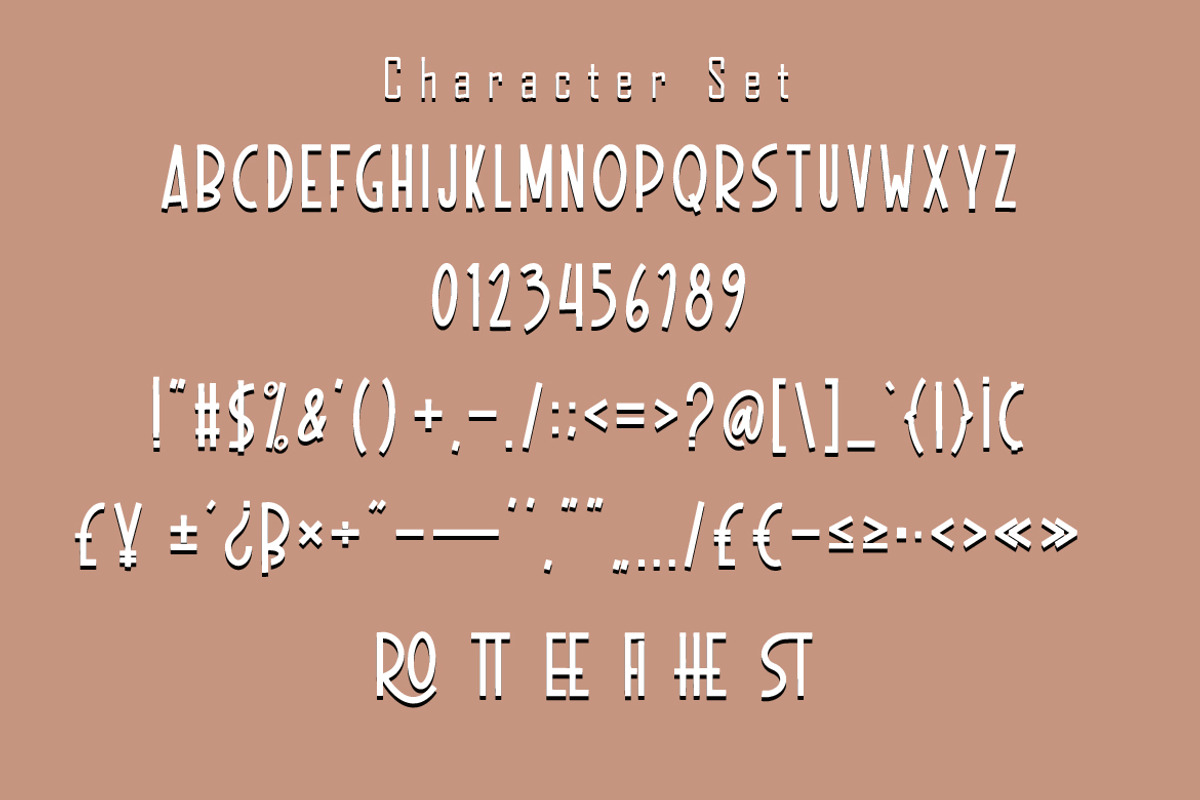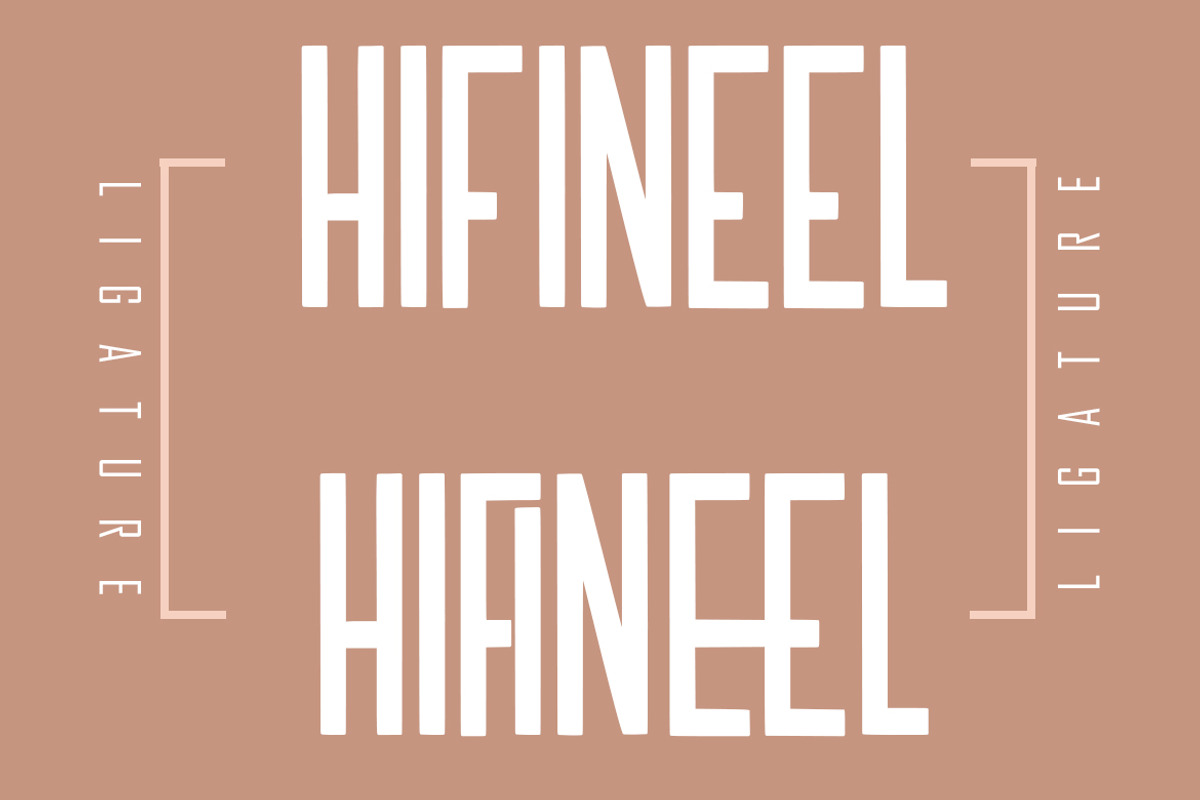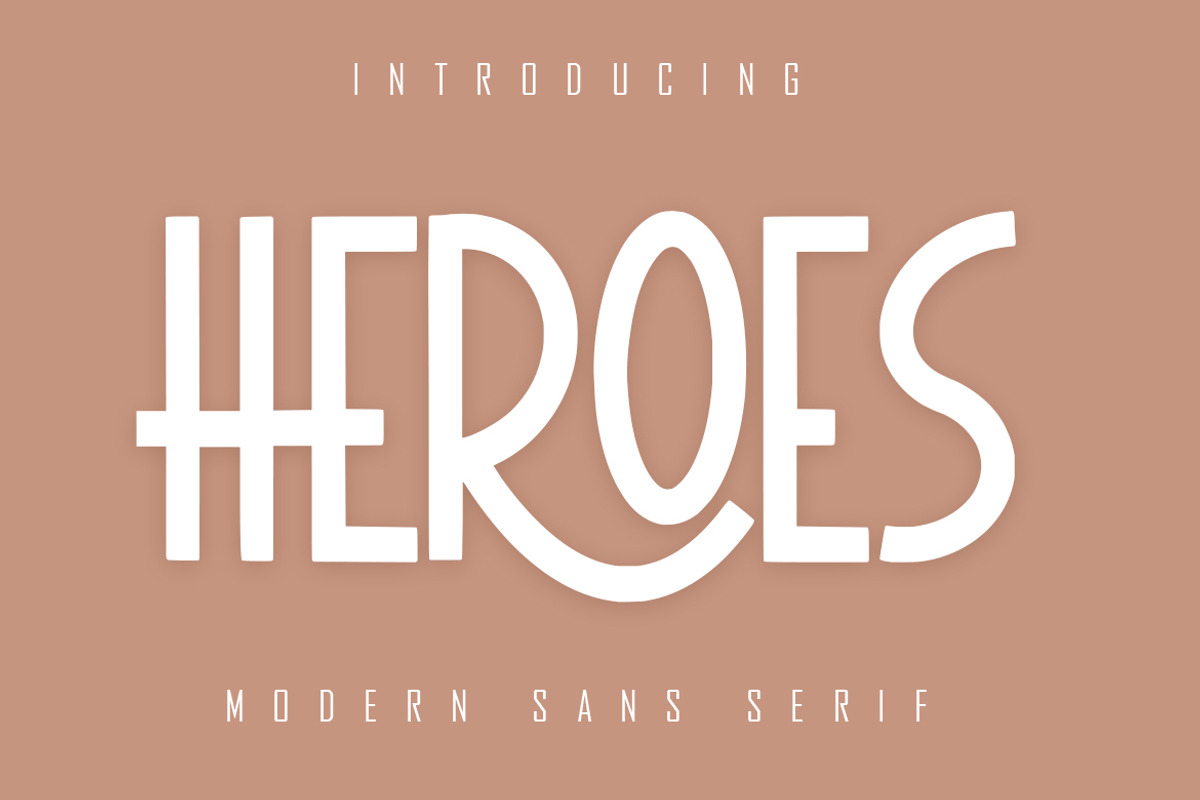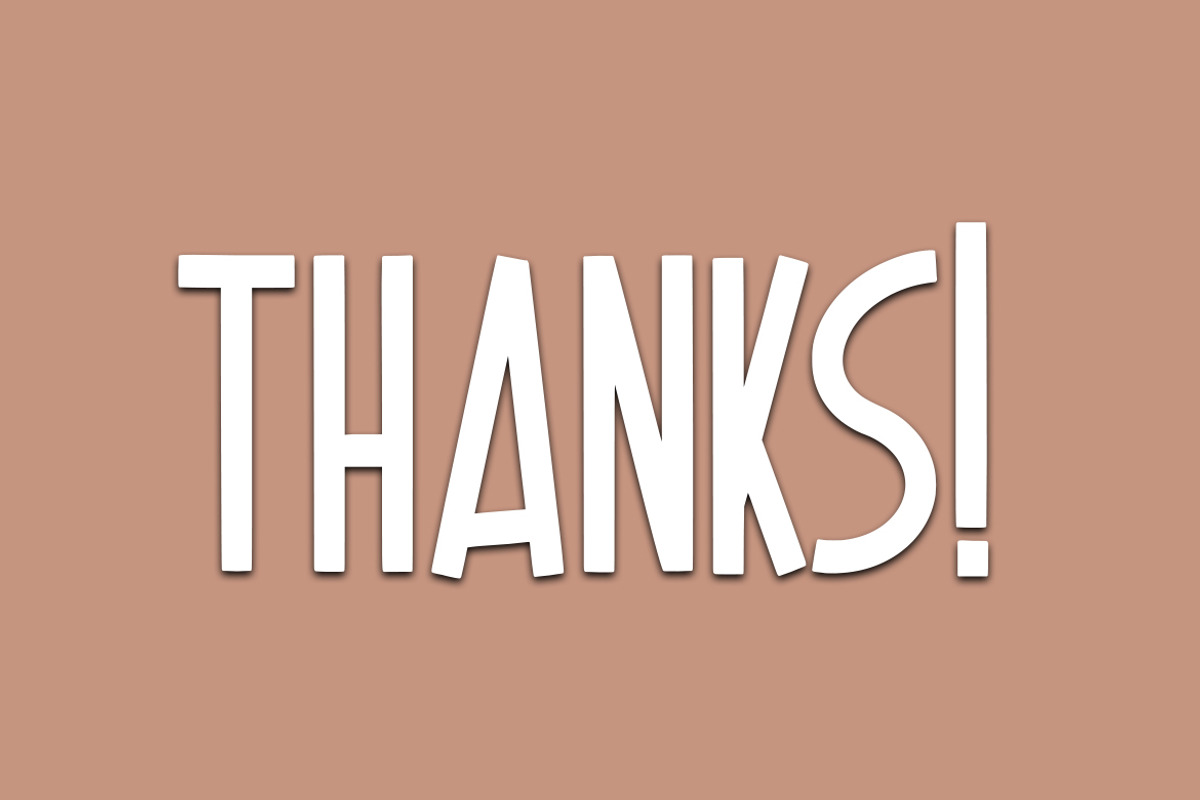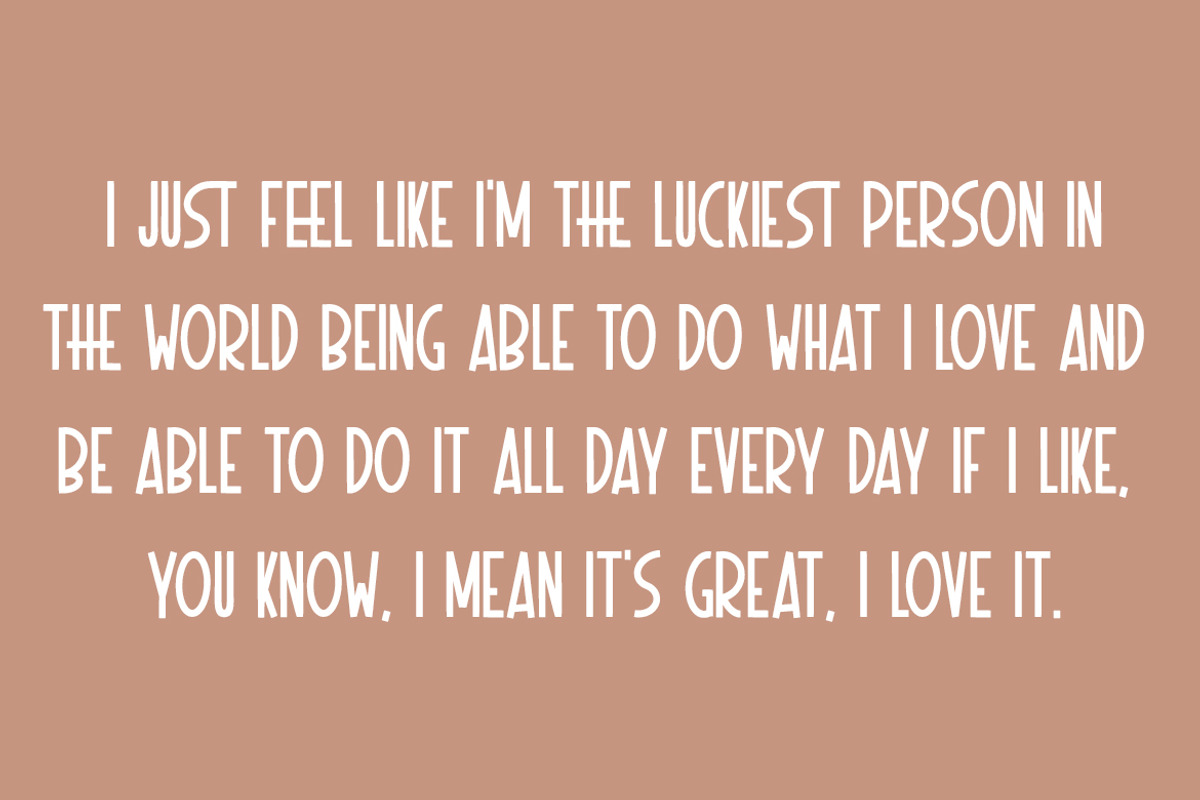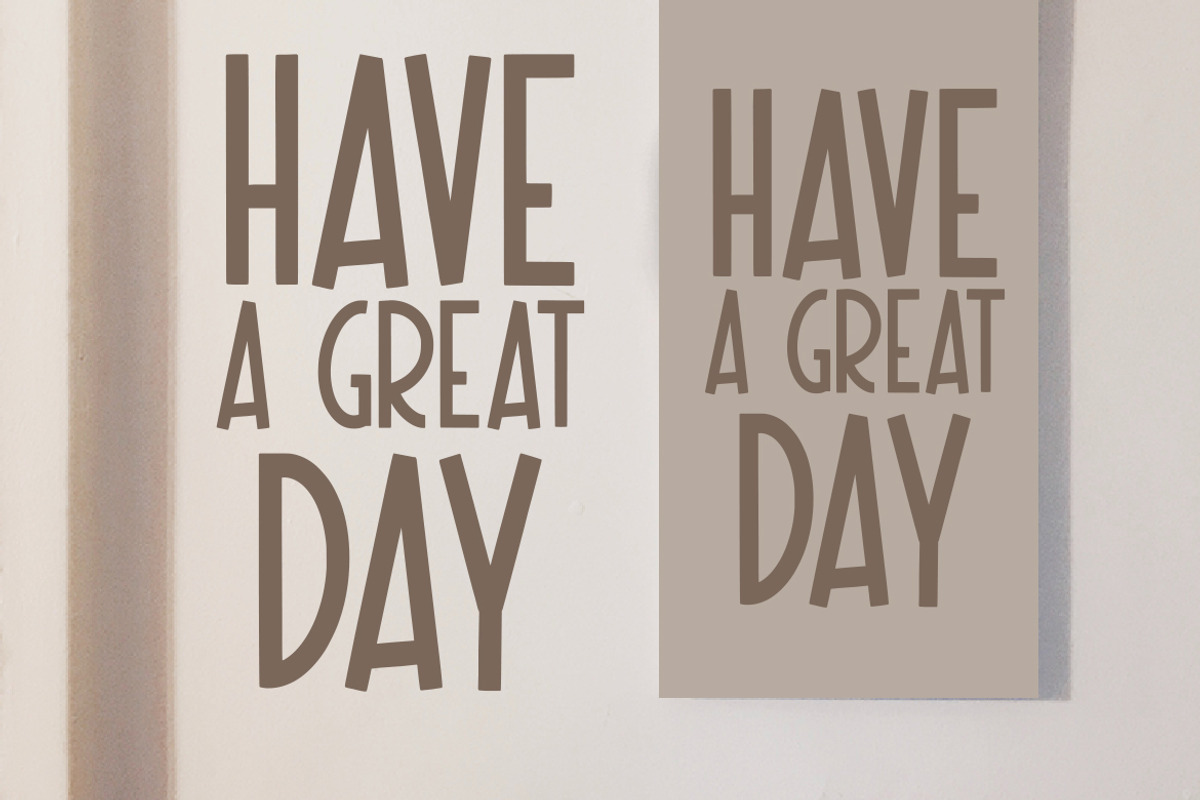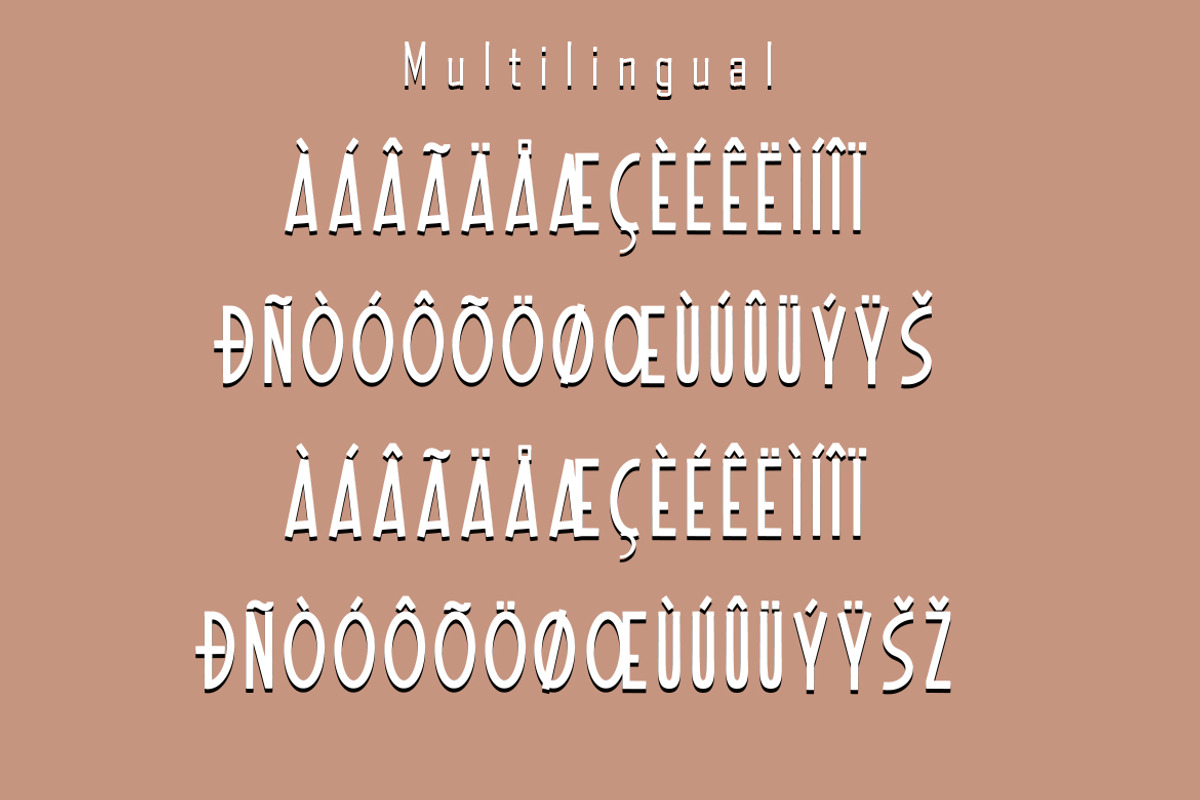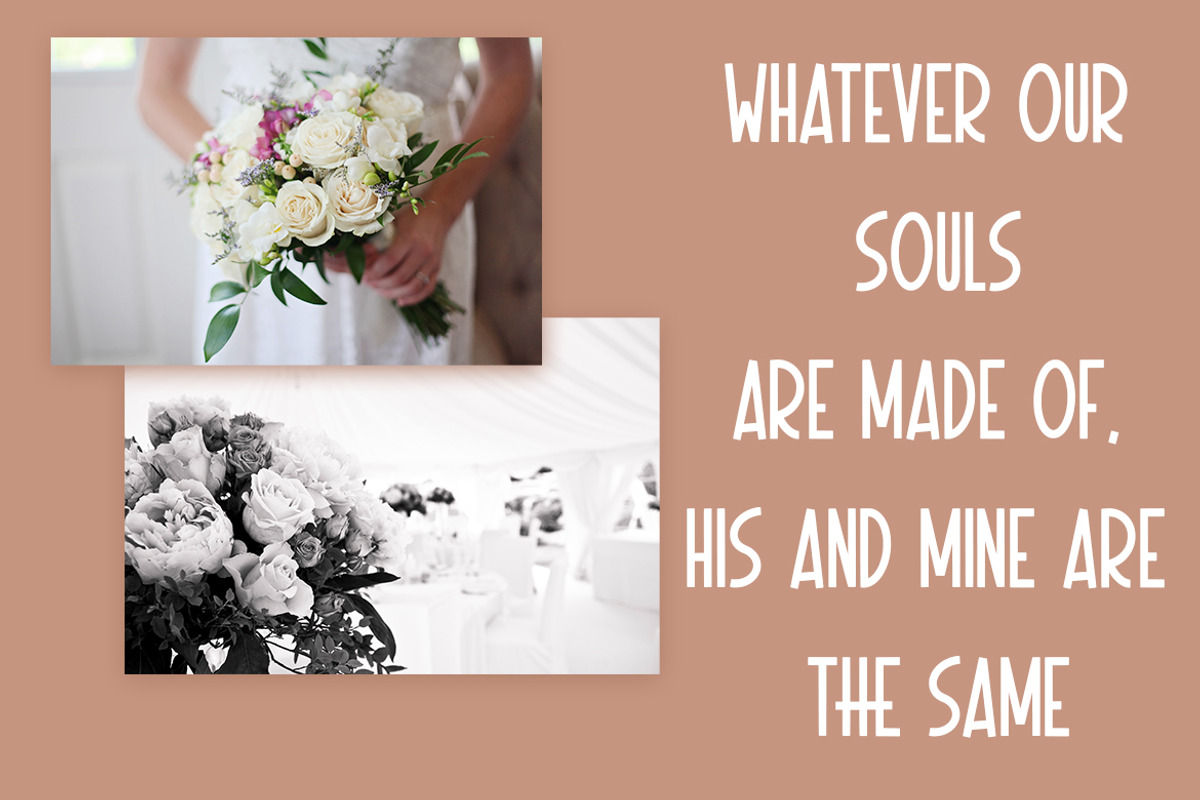
HEROES Sans Serif
HEROES a condensed sans serif font. It has a elegant, classy look and modern. It’s a great font for fashion, Ligature Feature Opentype, apparel projects, signature, album cover, logo, branding, magazine, social media, & advertisements.
- Basic Latin Language Support (AÀÁÂÃÄÅCÇDÐEÈÉÊËIÌÍÎÏÑOØÒÓÔÕÖUÙÜÚÛWYÝŸÆß )